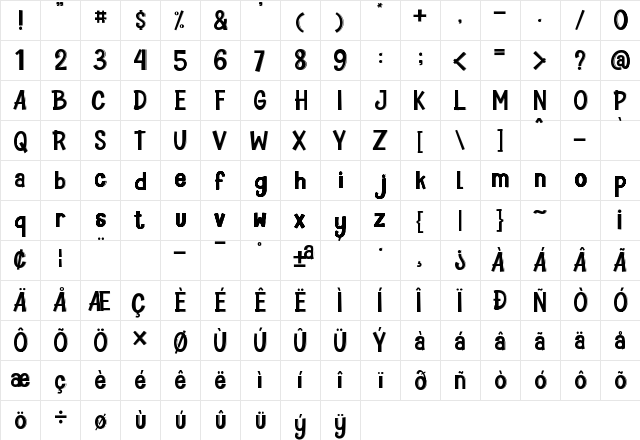
Gett Well Soon Regular
| Foundry | ZainStudio |
| Designer | ZainStudio |
Design Context for Gett Well Soon Typeface
Gett Well Soon offers clean, dependable letterforms without strong stylistic allegiance, making it a practical choice for designers who need flexibility.